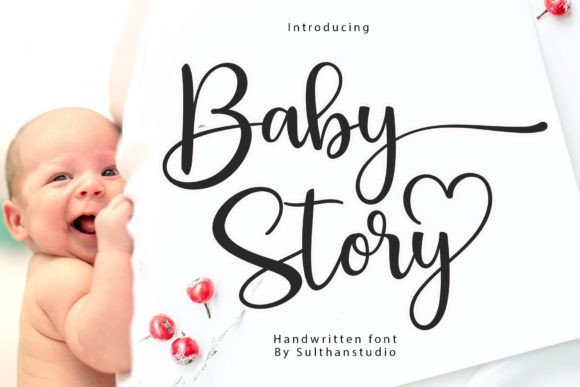
Welcome to our collection of script fonts, and we're excited to introduce you to our latest addition: Baby Story Font! This font is the perfect choice for anyone looking for the best font for baby girl names. It is a script font created by Sulthan Studio that features a unique and eye-catching handwritten style inspired by a very cute baby story.
The Baby Story Font family is an excellent choice for those looking for a font that can add a touch of personality and charm to their project. It is a versatile font that can be used in various design projects, such as invitations, greeting cards, logos, and many more. Its handwritten style gives it an authentic and personal feel, making it an excellent choice for any project that requires a touch of warmth and personality.
One of the unique features of this font is its ability to connect each letter with a heart or add a heart on each end of the letter. Additionally, a middle letter that rises up or down gives it a distinct and creative touch. These features add to the font's beauty, making it perfect for any design project that requires a touch of creativity and uniqueness.
Whether you're designing a logo or creating an invitation for a baby shower, the Baby Story Font is the perfect choice. Its handwritten style adds a touch of warmth and personality to any project, making it stand out and leave a lasting impression.
In conclusion, if you're looking for the best font for baby girl names, look no further than Baby Story Font! Its unique and eye-catching style, combined with its versatility and creativity, makes it the perfect choice for any project. Download it now and take your design projects to the next level!